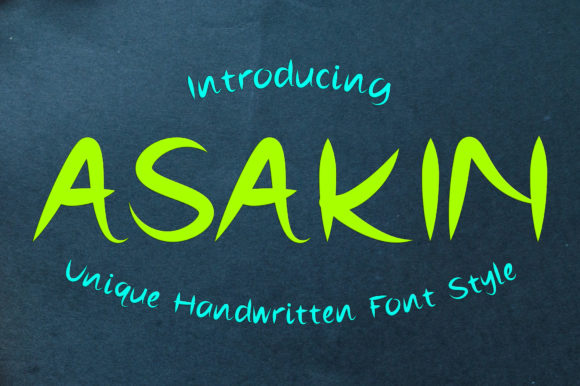
The Ultimate Guide to Asakin Font: Elevate Your Designs with this Chic Display Font
I’ll never forget the time I was working on a project for a trendy boutique client, and I was struggling to find the perfect font to match their brand’s vibe. The client wanted something that was both stylish and approachable, but I just couldn’t seem to find the right fit. That was until I stumbled upon Asakin Font. ✨ This chic and casual display font has since become a staple in my font library, and I’m excited to share its awesomeness with you!
An Honest Review of Asakin Font
So, what makes Asakin Font so special? Let’s dive into the good stuff and a few quirks I’ve discovered.
• ✅ Versatility: Asakin Font is incredibly versatile and can be used for a wide range of projects, from fashion branding to social media graphics.
• ✨ Elegant yet approachable: This font strikes the perfect balance between elegance and approachability, making it perfect for brands that want to look stylish without being too formal.
• 🔍 High legibility: Even at smaller sizes, Asakin Font remains highly legible, which is a huge plus for designers who need to create a variety of assets.
• ⚠️ Limited use for body text: While Asakin Font is amazing for headlines and titles, it’s not the best choice for body text due to its display nature.
• 🤔 Some glyphs may require manual adjustment: Depending on your design, you might need to manually adjust some glyphs to get the perfect look.
The Backstory of Asakin Font
Asakin Font was designed with the intention of creating a versatile and stylish display font that could be used across various design projects. Its creator aimed to craft a font that was both elegant and approachable, making it perfect for designers who need a reliable go-to font.
Q: What type of projects is Asakin Font best suited for?
A: Asakin Font is ideal for projects that require a stylish and casual display font, such as fashion branding, social media graphics, and editorial designs.
Q: Can I use Asakin Font for body text?
A: While Asakin Font is amazing for headlines and titles, it’s not recommended for body text due to its display nature and potential readability issues at smaller sizes.
Q: Does Asakin Font support OpenType features?
A: Yes, Asakin Font supports OpenType features, including ligatures and stylistic alternates, which can be accessed in compatible design software like Adobe Photoshop and Illustrator.
Q: Is Asakin Font suitable for digital and print designs?
A: Absolutely! Asakin Font is designed to be versatile and can be used for both digital and print designs, making it a great addition to any designer’s font library.